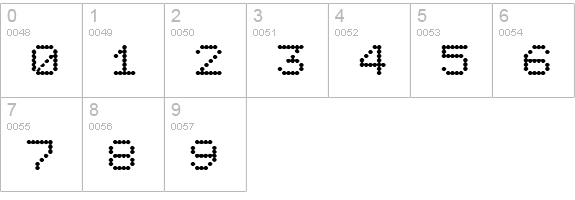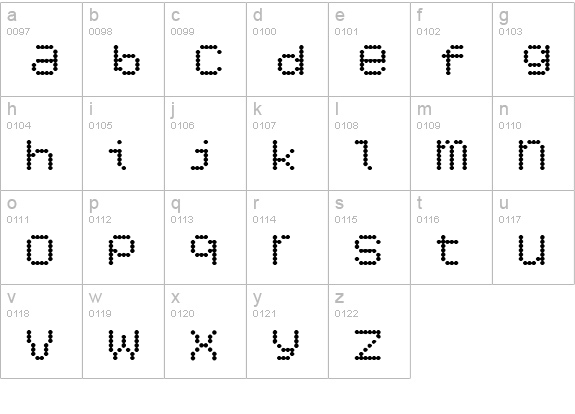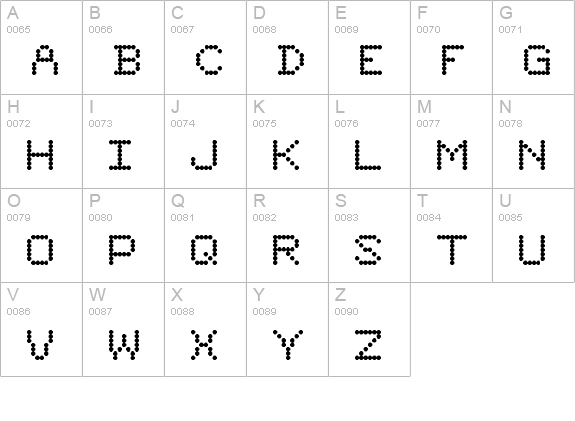
6x7oct Alternate ExtraBold is an extra-heavy, attention-grabbing variant in the 6x7oct typeface family \xE2\x80\x94 well suited to high-impact headlines, posters, and bold branding.
The 6x7oct Alternate ExtraBold font is a modern and stylish typeface that exudes confidence and strength. With its bold and striking design, this font is perfect for making a statement and capturing attention. The unique alternate characters add a touch of creativity and versatility to your designs, making them stand out from the crowd. What makes this font even more appealing is that it is available for free download at FontsMarket.com. This means you can easily access this high-quality typeface without any cost, making it a valuable addition to your font collection. Whether you are designing posters, logos, banners, or any other creative project, the 6x7oct Alternate ExtraBold font is sure to make a bold statement and leave a lasting impression.